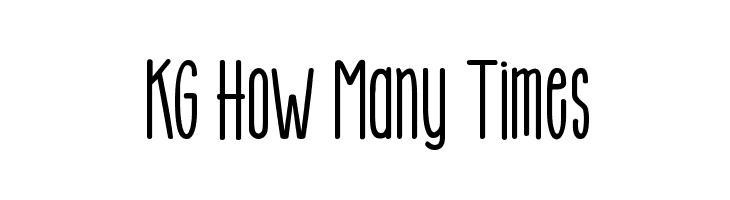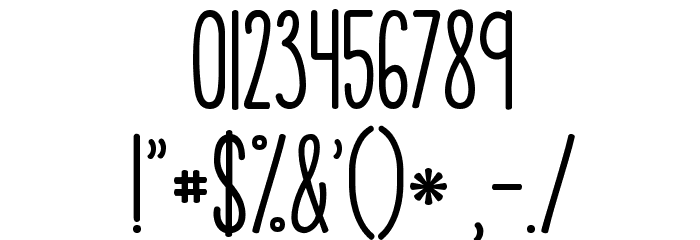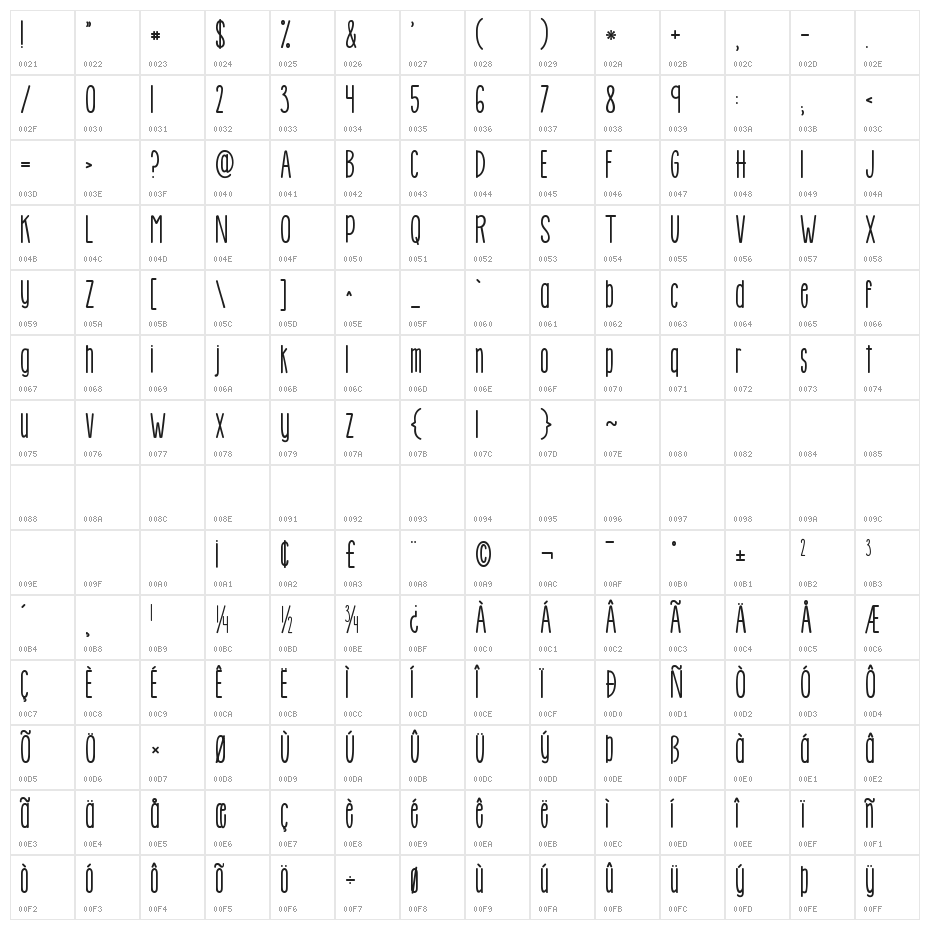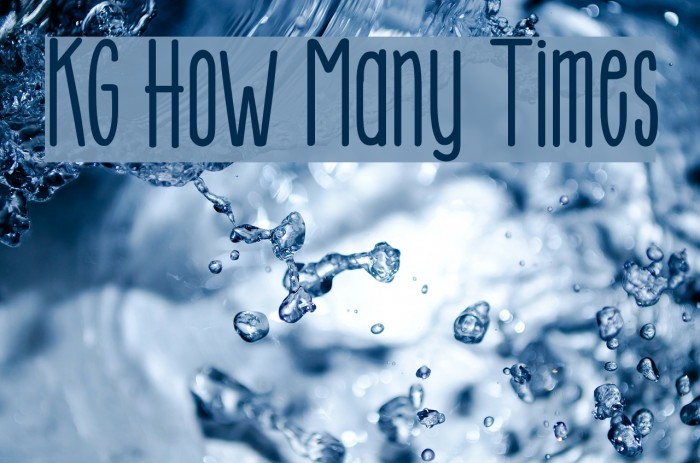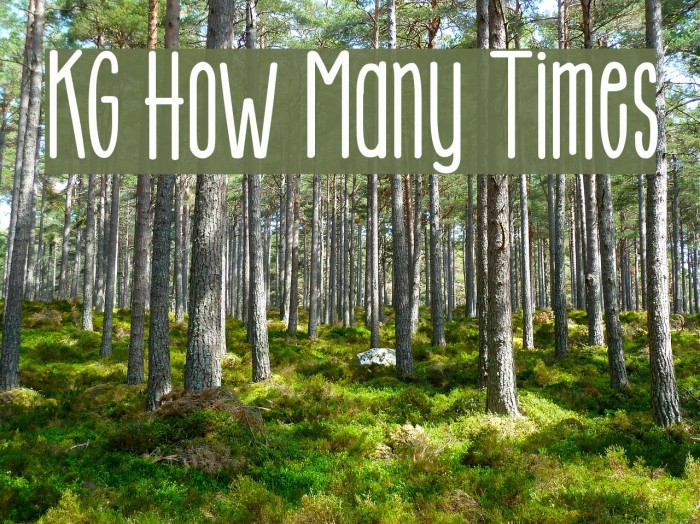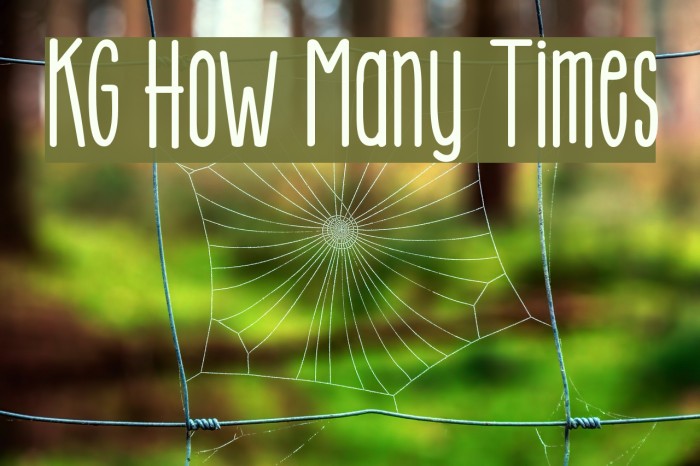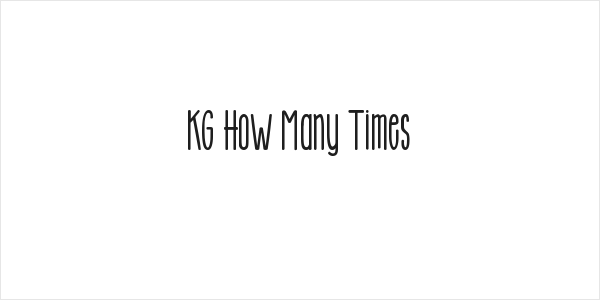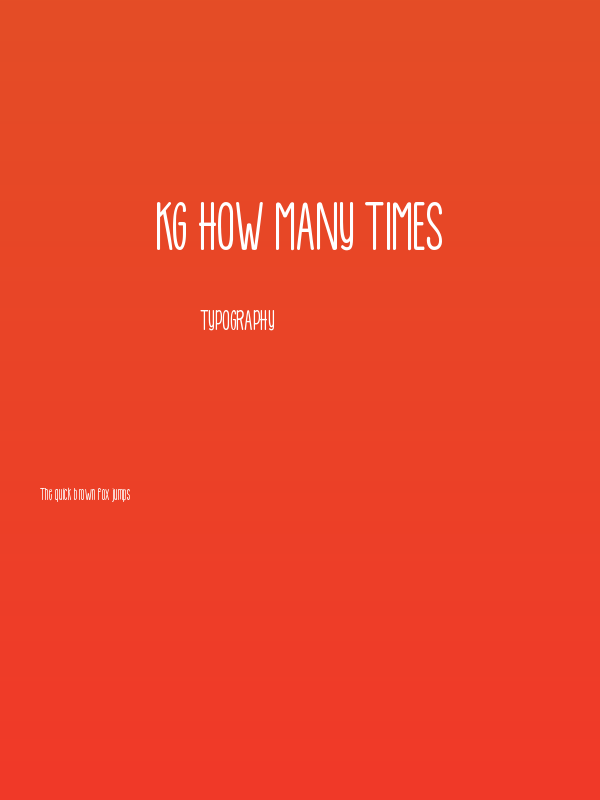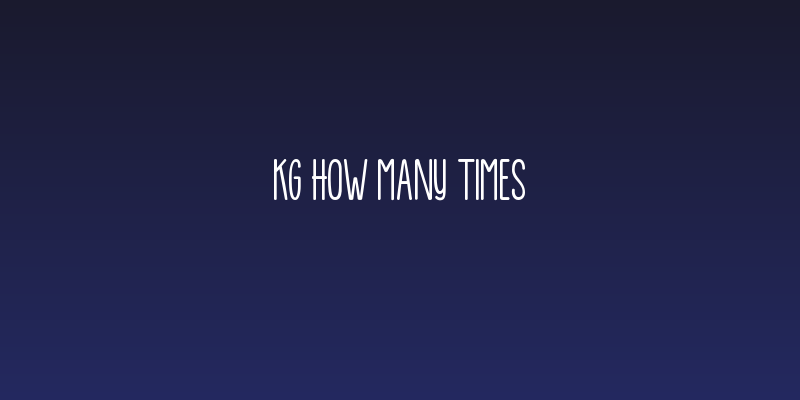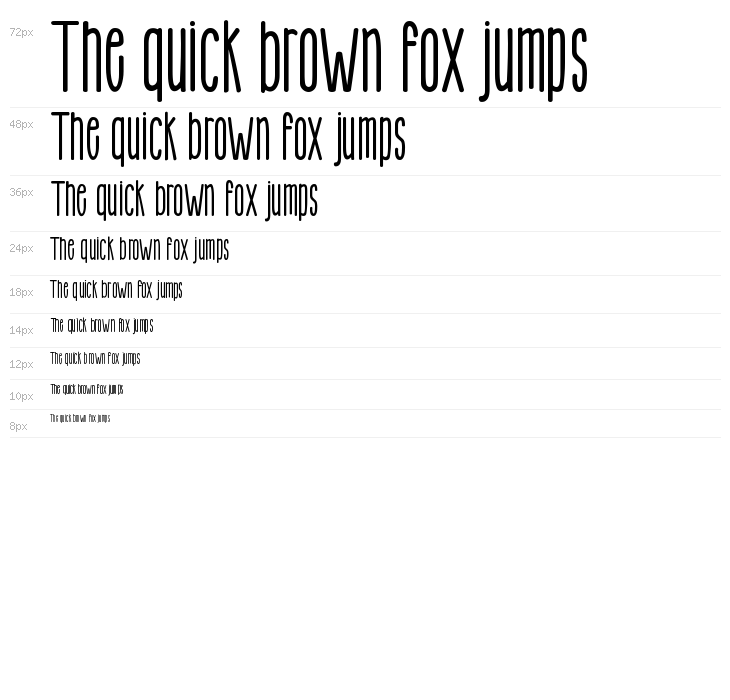
KG How Many Times Font
KG How Many Times Description
This font features a playful and elongated design, characterized by tall, narrow letters with rounded edges. The uniform stroke width gives it a clean and modern appearance, while the slightly whimsical style adds a touch of fun. The uppercase and lowercase letters maintain a consistent height ratio, enhancing readability. Numbers and special characters are designed to match the overall aesthetic, making this font versatile for various applications. Its unique style is suitable for projects that require a friendly and approachable look.
| Overall Style | Playful, Modern |
| Proposed Projects | Ideal for children's books, playful branding, greeting cards, and casual invitations. |